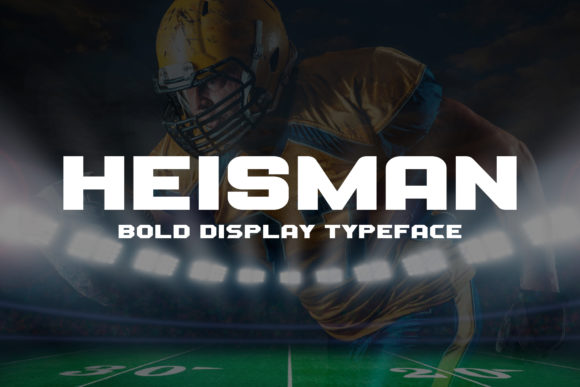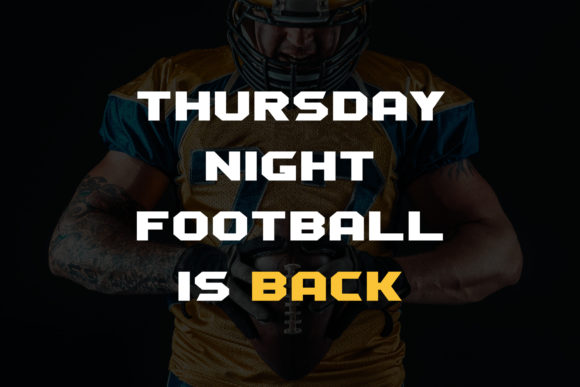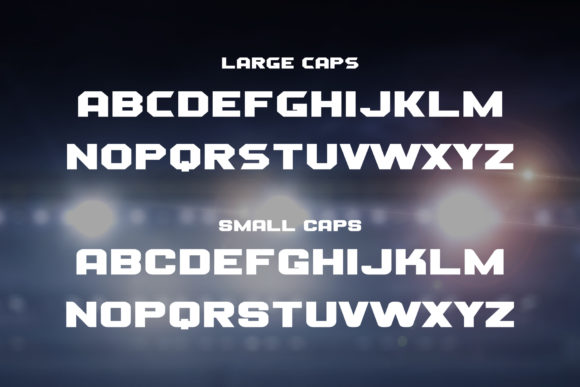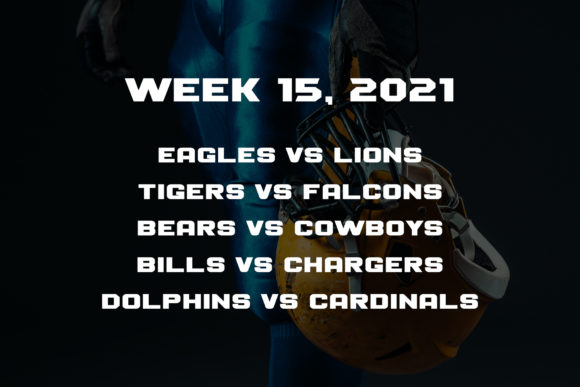
Heisman Font: A Bold Sans Serif for Eye-Catching Logo Design
About the Heisman Font
Explore the possibilities with Heisman Font, a font that offers both beauty and functionality. Heisman is a chunky lettered sans serif font. Fall in love with its incredibly versatile style and use it to create spectacular designs!
Heisman’s bold, chunky style makes it ideal for headlines, short impactful statements, and branding applications where a strong visual presence is needed. It works exceptionally well in posters, logos, and packaging design, particularly for products targeting a younger demographic or conveying a message of strength and confidence. Avoid using Heisman for body text or long paragraphs; its weight can become visually overwhelming in extended use and hinder readability.
The font’s energetic personality pairs well with more delicate scripts for a balanced contrast, such as a flowing cursive for subheadings or smaller text elements. For a modern, high-contrast look, a clean geometric sans-serif would complement its robust forms. Alternatively, a classic serif font could add a layer of sophistication and refinement.
Heisman projects a confident and modern personality, suitable for brands seeking to communicate authority and dynamism. Consider pairings like Playfair Display (serif) for a classic yet bold feel, or Montserrat (sans-serif) for a clean, contemporary aesthetic.
Heisman Font Usage Examples
Heisman Font Example